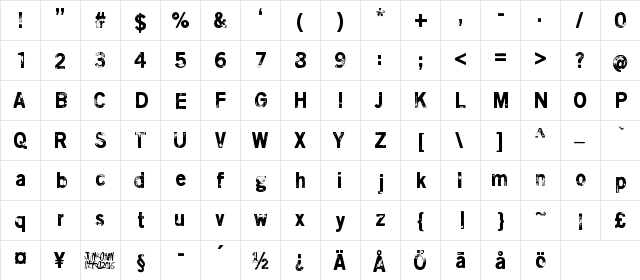
Scratch X Regular
Design Context for Scratch X Typeface
Scratch X is a composed and adaptable typeface that performs quietly and consistently across a wide range of design contexts.